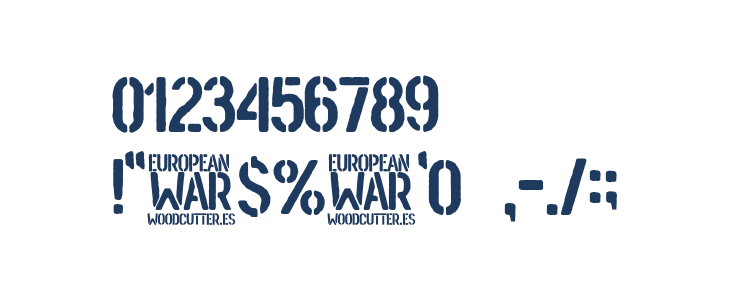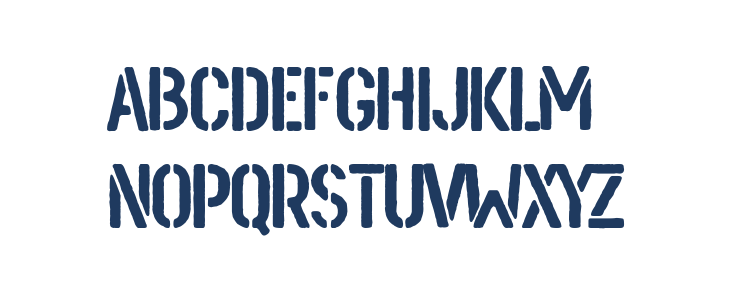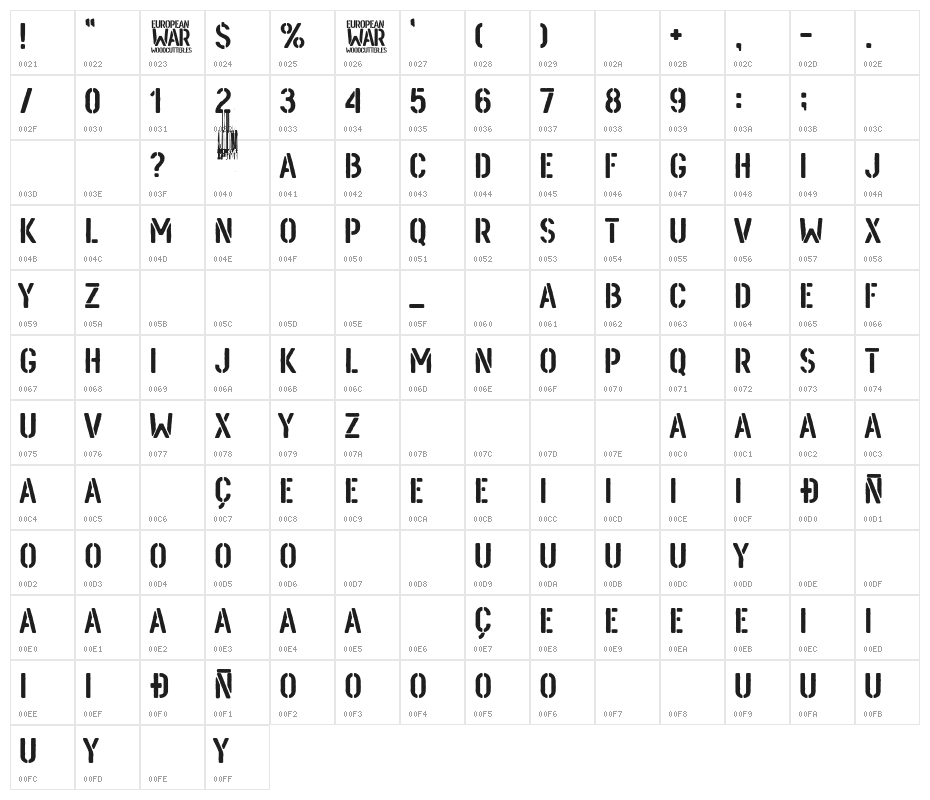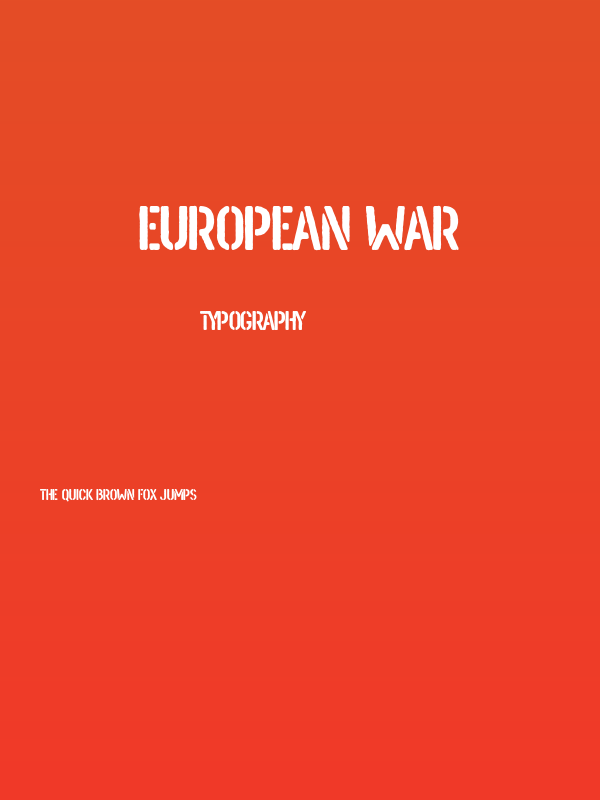
European War Font
European War Description
A bold, stencil-style sans-serif font with geometric letterforms and distinct breaks in the strokes, evoking a utilitarian, military-inspired aesthetic. The characters are uppercase only, with consistent stroke width and minimal ornamentation.
| Overall Style | Decorative, Industrial, Military |
| Use Case | Headlines, Posters, Logos, Signage |
| Proposed Projects | Posters, military-themed designs, packaging, signage, branding for industrial or tactical products. |